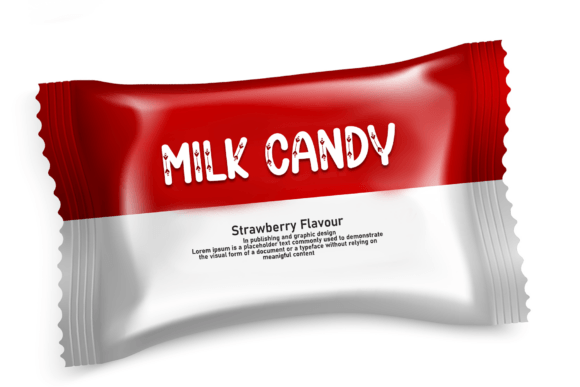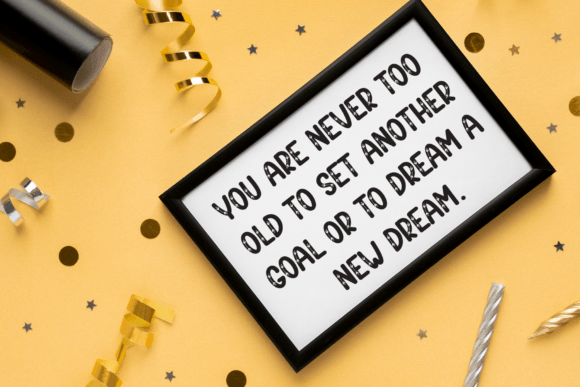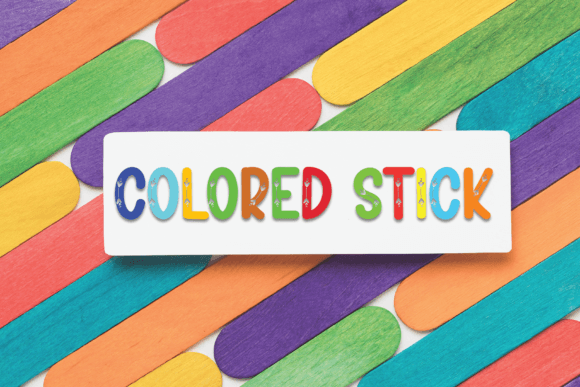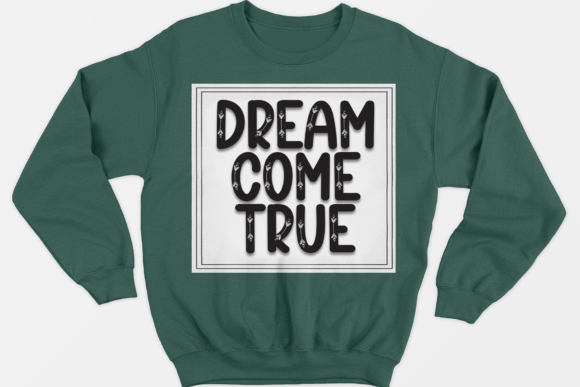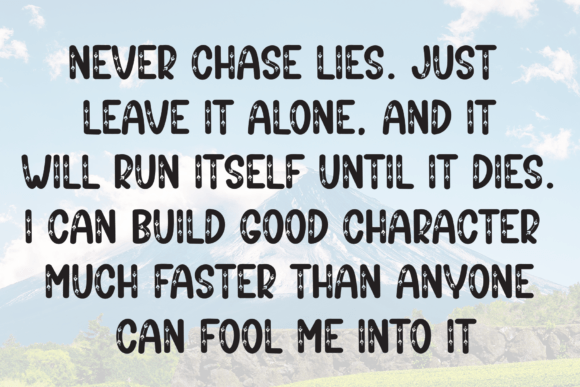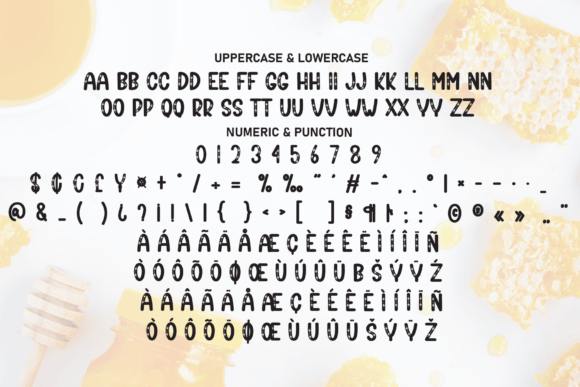
Introduction to Love Honey Font
Have you ever stared at a blank canvas, waiting for inspiration to strike, only to have a single word or phrase pop into your head and suddenly your creative project is off and running? For designers, this moment of clarity can be a game-changer, and it’s exactly what the Love Honey Font is designed to evoke.
As a bold and eye-catching display font, Love Honey Font is perfect for titles, posters, and headlines that demand attention. Its thick, strong letters make it easy to read and great for creating a striking, modern look that’s sure to leave a lasting impression. Whether you’re working on a high-profile design project or simply want to add some extra flair to your social media graphics, Love Honey Font is a valuable resource that’s sure to elevate your design game.
Key Features of Love Honey Font
- High-quality design resource perfect for creative projects, including invitations, greeting cards, and more.
- Unique, hand-drawn style with a transparent background, allowing for easy customization and blending with other design elements.
- Includes a large character set, covering a wide range of languages and providing versatility for various design applications.
Honest Review: Love Honey Font
I recently came across the Love Honey Font, a new design resource that has been making waves in the creative project community. In this review, I’ll share my honest thoughts on its features, limitations, and overall impression.
- High-quality design: The Love Honey Font boasts a beautiful, elegant design that’s perfect for creative projects.
- Transparent background: This feature allows for seamless integration with other design elements.
- Limited font styles: The Love Honey Font only comes in a few styles, which may limit its versatility for certain projects.
- No bold or italic variants: Some designers may find the lack of bold or italic variants restrictive.
Overall, I’m impressed with the Love Honey Font’s quality and ease of use. While it has some limitations, it’s a great resource for designers working on creative projects. With its high-quality design and transparent background, it’s definitely worth considering for your next project.
Getting the Most Out of Love Honey Font
Some tips for getting the most out of the Love Honey Font include experimenting with different font sizes and styles, using it in combination with other design elements, and taking advantage of its transparent background feature to create visually appealing designs.
The Love Honey Font is a popular design resource for a variety of creative projects, including blog posts, social media graphics, and marketing materials. Its high-quality design and free download make it an excellent choice for designers and non-designers alike.